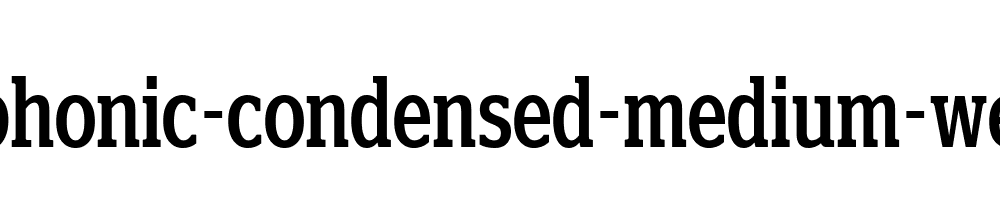
polyphonic-condensed-medium-webfont
About polyphonic-condensed-medium-webfont
The font “polyphonic-condensed-medium-webfont” exudes a sleek and modern feel, perfectly suited for a variety of design projects. Its streamlined appearance is characterized by its clean lines and balanced proportions.
Upon closer observation, one can appreciate the font’s subtle Aperture, which adds an interesting element to its overall design. The Apex of the letters is sharp and well-defined, giving the font a sense of sophistication. The curved Arcs and flowing Arms contribute to its overall elegance, while the Ascenders and Descenders add to its visual interest.
The font’s Axis is straight and sturdy, providing a solid foundation for each character. The Beaks and Bilateral Serifs bring a touch of personality to the font, making it stand out from the crowd. The Bowls are full and rounded, creating a harmonious flow within each letterform.
In terms of classification, the font can be considered Elegant yet Progressive, blending classic elements with a modern twist. Its Technic and Organic qualities showcase a balance between precision and fluidity, making it a versatile choice for both serious and friendly designs.
Overall, the “polyphonic-condensed-medium-webfont” is a well-crafted typeface that strikes the perfect balance between simplicity and sophistication. Whether used for branding, editorial work, or web design, this font is sure to make a lasting impression.